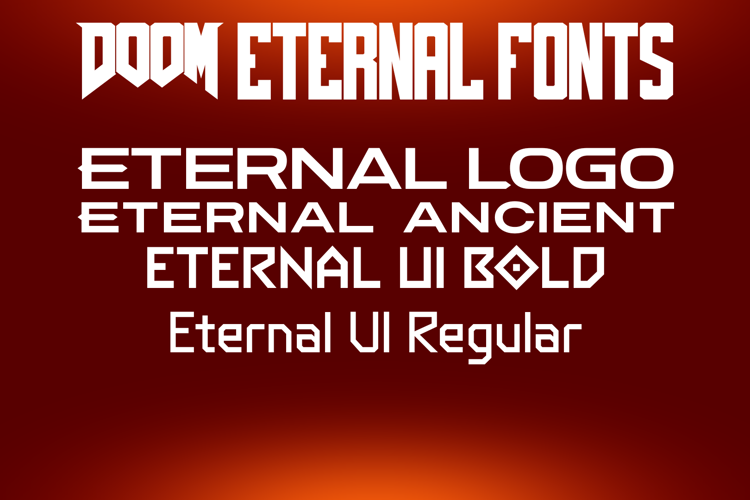
DOOM Eternal Font
A set of fonts based on the DOOM Eternal logo and the in-game UI. The UI fonts will be obsolete when someone manages to extract the real deal from the game.
The Eternal Logo font comes with 6 ligatures for the nameplate and the Eternal wordmark. You can check the poster for additional details. (Not guaranteed to work with programs that don't support ligatures.)
(Update 1 8/25/20): After the reveal of the Ancient Gods Part 1 DLC logo, I made another font called Eternal Ancient (which is just modified Turnpike), plus the Eternal Logo now has Cyrillic language support.
(Update 2 3/7/22): I tweaked the fonts a bit (mostly readjusting their kernings) and in UI fonts' case, redrew them from scratch after finding their source material. Instead of removing the older versions, I'll keep them as some sort of a legacy option due to how widespread it has become in Doom community.
(Update 3 3/9/22): A new font has joined the set, which was based on the Battlemode wordmark. It also features ligatures for these words "battle, horde and mode".